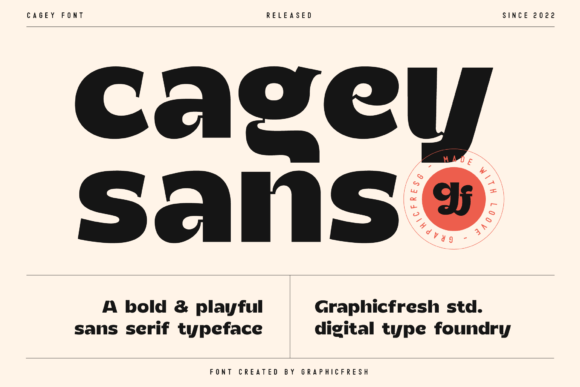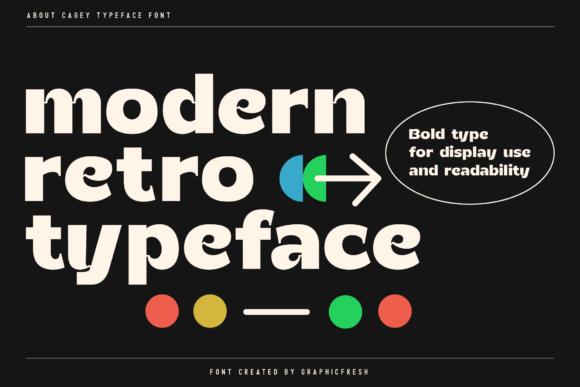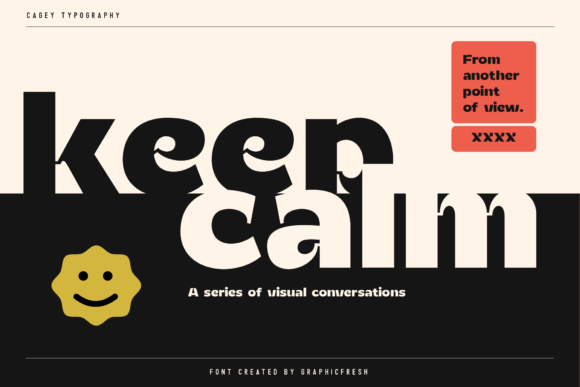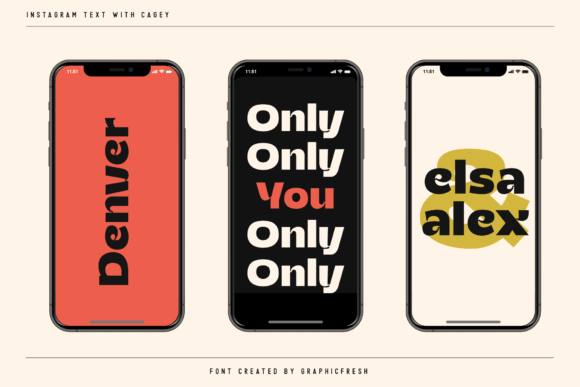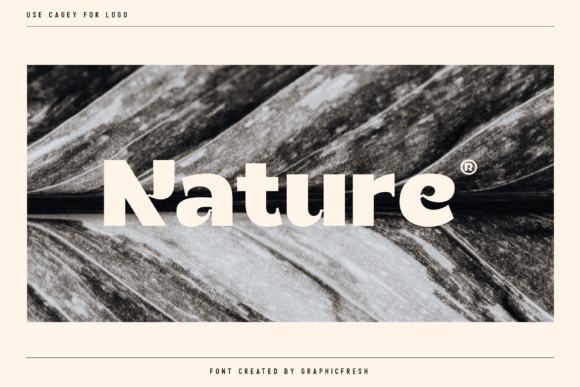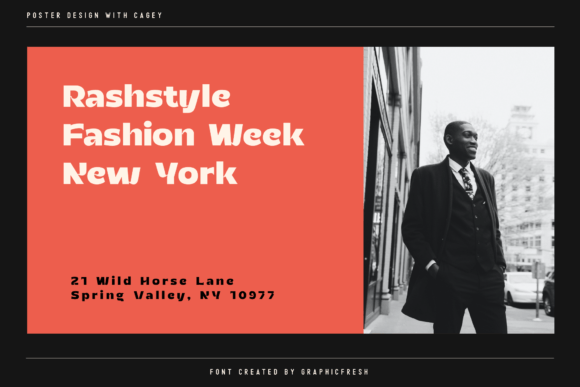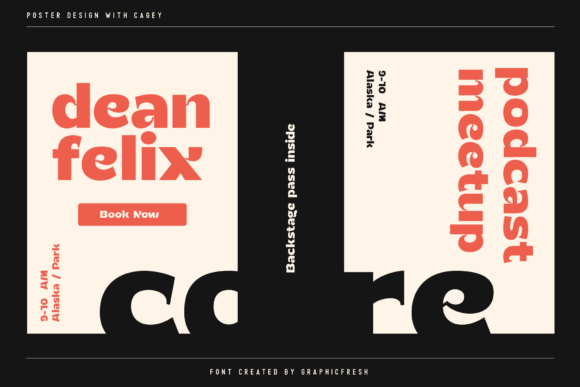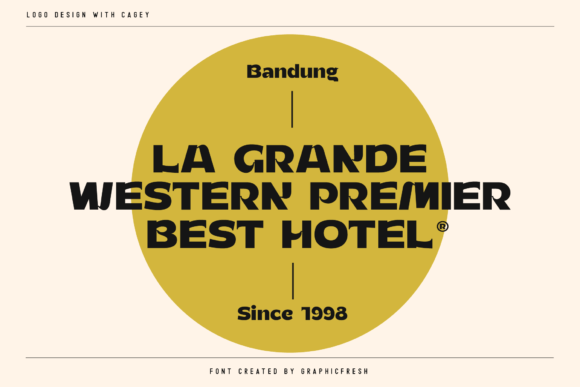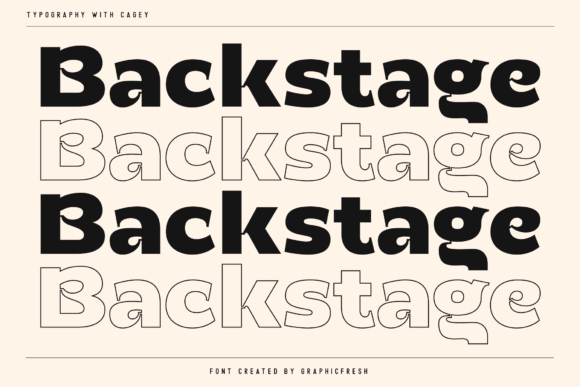
Cagey Font
Cagey – The Bold Retro Sans Serif Font. This font is synonymous with the 70s or 80s style design visuals,  it looks bold and strong. It is also reminiscent of the past.